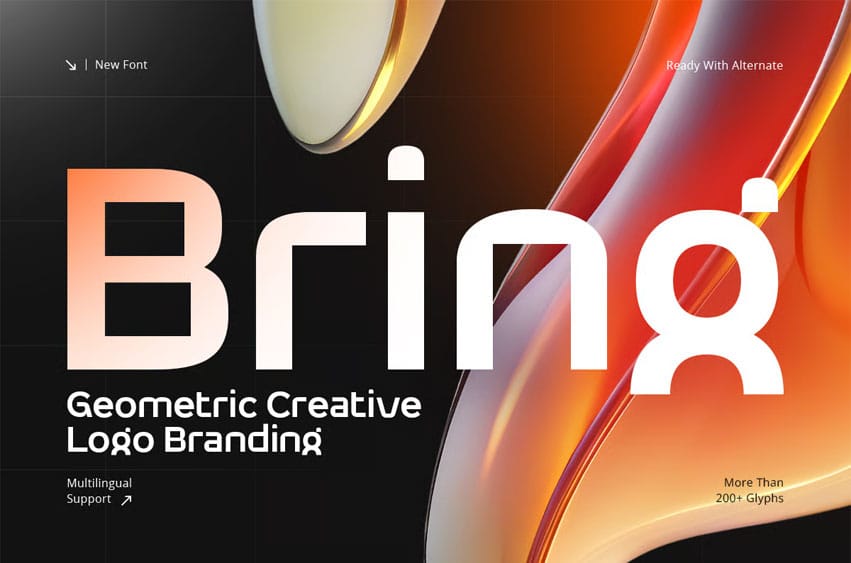
Bring Font Modern Creative Logo Branding Font is a distinctive display typeface crafted to help brands express originality, creativity, and modern visual appeal. Inspired by contemporary branding trends and innovative logo design, Bring is designed for projects that require a memorable and character-driven identity.
With its creative letterforms, refined proportions, and modern structure, Bring delivers a unique typographic presence while maintaining excellent readability. The design balances artistic expression with professional functionality, making it suitable for both bold branding and sophisticated visual communication.
- Character Set: Uppercase, lowercase, numbers, symbols, and punctuation
- Creative modern letterforms optimized for logo design and branding
- OpenType features ready to enhance your design needs
- Creative logo and brand identity design
- Startup and innovative business branding
- Website headers and digital brand assets
- Marketing campaigns and promotional materials
- Editorial headlines and display typography
- Contemporary design projects requiring distinctive character
Whether you are developing a creative brand identity, designing a modern logo, or creating a unique visual communication system, Bring delivers originality, clarity, and contemporary style to help your work stand out.